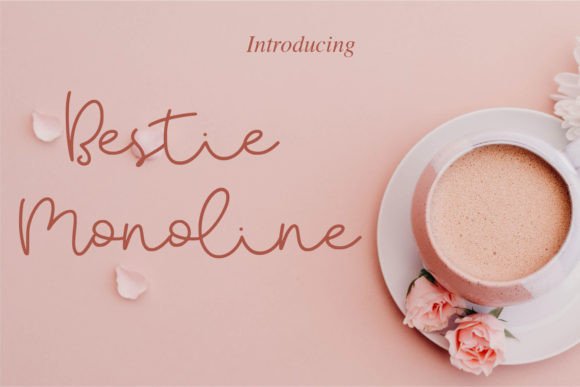
Introducing Bestie Monoline Script Font: Elevate Your Designs with a Casual Touch
Are you on the hunt for a font that adds a personal and casual touch to your designs? Look no further than Bestie Monoline Script Font. This beautiful, handcrafted font is perfect for creatives who want to make their projects stand out. Whether you’re working on logo designs, social media posts, movie and book titles, or any other creative endeavor, Bestie Monoline Script is the ideal choice.
What Makes Bestie Monoline Script Font Special?
Bestie Monoline Script is a casual script font that boasts a unique, monoline style. Its elegant and fluid lines make it perfect for a wide range of applications, from branding and advertising to packaging and digital media. This font is designed to help you create stunning work that captures the essence of your message.
Key Features of Bestie Monoline Script Font
• Casual and Friendly Vibe: Bestie Monoline Script exudes a warm and approachable feel, making it perfect for designs that require a personal touch.
• Monoline Style: The font’s monoline style gives it a sleek and modern look that’s sure to impress.
• Highly Versatile: Use Bestie Monoline Script for logo designs, social media posts, movie and book titles, and any other creative project that requires a unique and eye-catching font.
• Easily Readable: The font’s clear and legible design ensures that your message is conveyed effectively, even at small sizes.
Use Cases for Bestie Monoline Script Font
Bestie Monoline Script is an incredibly versatile font that can be used in a variety of contexts. Here are some ideas to get you started:
• Logo Designs: Create a lasting impression with a custom logo that incorporates Bestie Monoline Script.
• Social Media Posts: Add a personal touch to your social media posts and make them stand out from the crowd.
• Movie and Book Titles: Use Bestie Monoline Script to create eye-catching titles for your film or book projects.
• Branding and Advertising: Elevate your brand’s visual identity with this beautiful and unique font.
• Packaging Design: Add a touch of elegance to your product packaging with Bestie Monoline Script.
Tips for Using Bestie Monoline Script Font
To get the most out of Bestie Monoline Script, here are some tips to keep in mind:
• Experiment with Font Sizes: Bestie Monoline Script looks great at a range of font sizes, so don’t be afraid to experiment and find the perfect size for your project.
• Pair with Other Fonts: Combine Bestie Monoline Script with other fonts to create a unique and visually appealing typography scheme.
• Use in Combination with Images: Add an extra layer of depth to your designs by combining Bestie Monoline Script with high-quality images.
Bestie Monoline Script Font is a versatile and beautiful font that’s perfect for creatives who want to add a personal touch to their designs. With its casual and friendly vibe, monoline style, and highly readable design, this font is sure to elevate your projects and make them stand out. So why wait? Download Bestie Monoline Script Font today and start creating stunning work that captures the essence of your message.